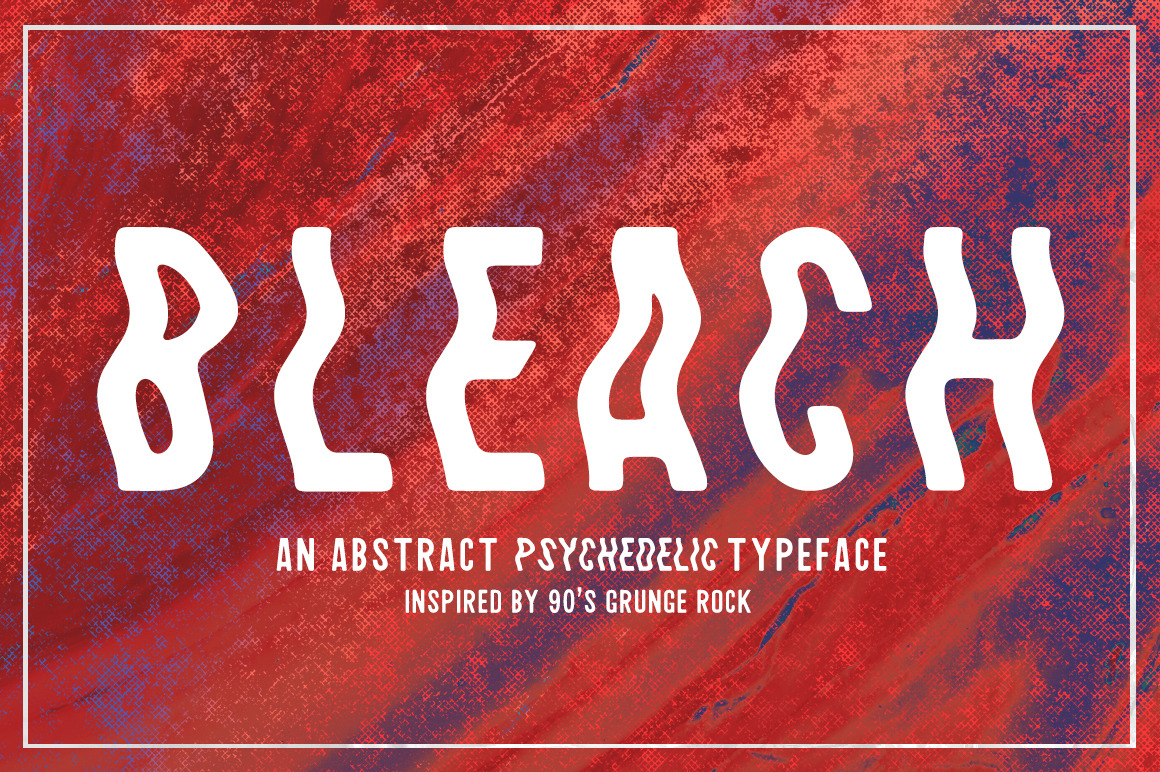
Bleach / Sans-Serif Typeface
This is Bleach. An all caps sans-serif font that smells of PBR and dive bars, inspired by 90’s grunge rock.
- three styles (left wave, right wave, natural) (all font filetypes)
- all caps
- numbers & punctuation